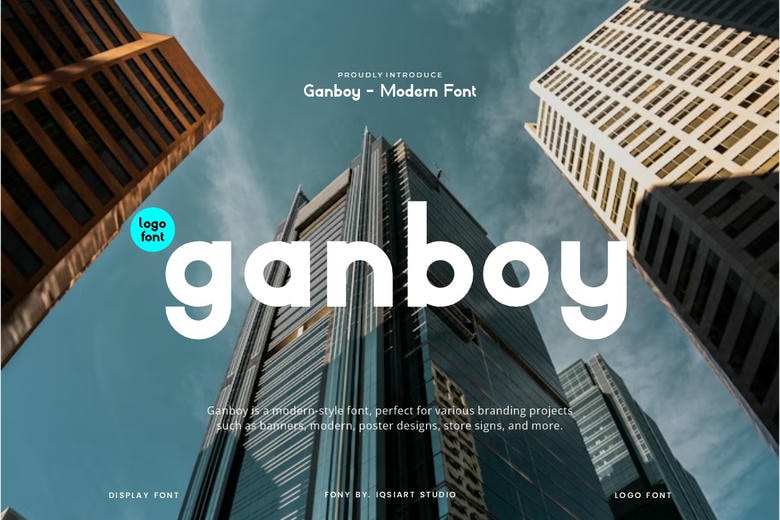
Ganboy Font
Ganboy Font is a bold and realistic display typeface and can be used in many design applications. We have a vast selection of themes and fonts styles – come to our profile and see more and choose the ideal one to use in your project.
Ganboy Sans Serif Font